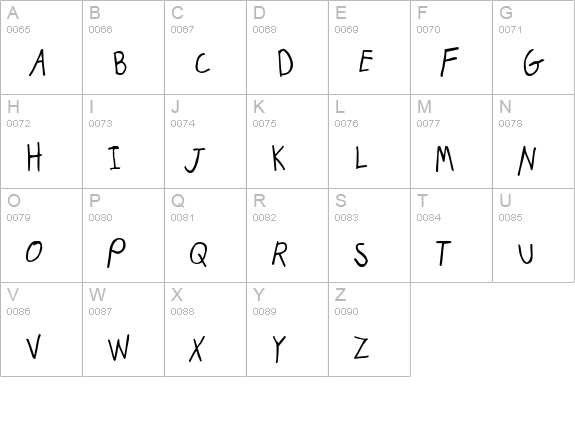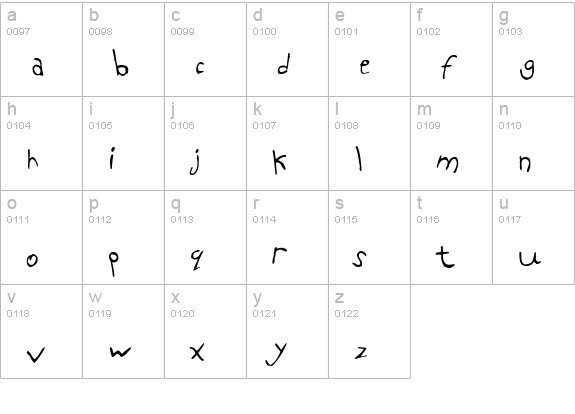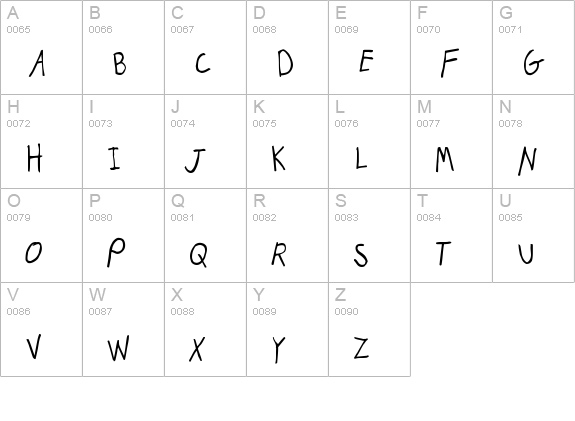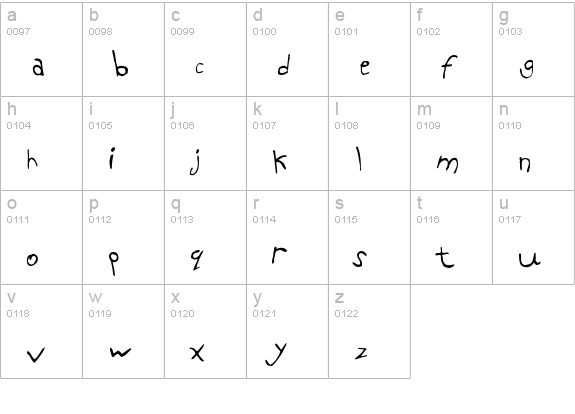
PFKids AgeFive font is a fun and playful typeface designed specifically for children's projects. With its whimsical and childlike appearance, this font captures the essence of youthful energy and creativity. Perfect for educational materials, children's books, posters, and more, PFKids AgeFive adds a touch of charm and innocence to any design. The best part is that PFKids AgeFive font is available for free download at FontsMarket.com. This means you can easily access this delightful font and use it in your projects without any cost. So go ahead and unleash your inner child with PFKids AgeFive font - the perfect choice for adding a touch of joy and imagination to your designs!